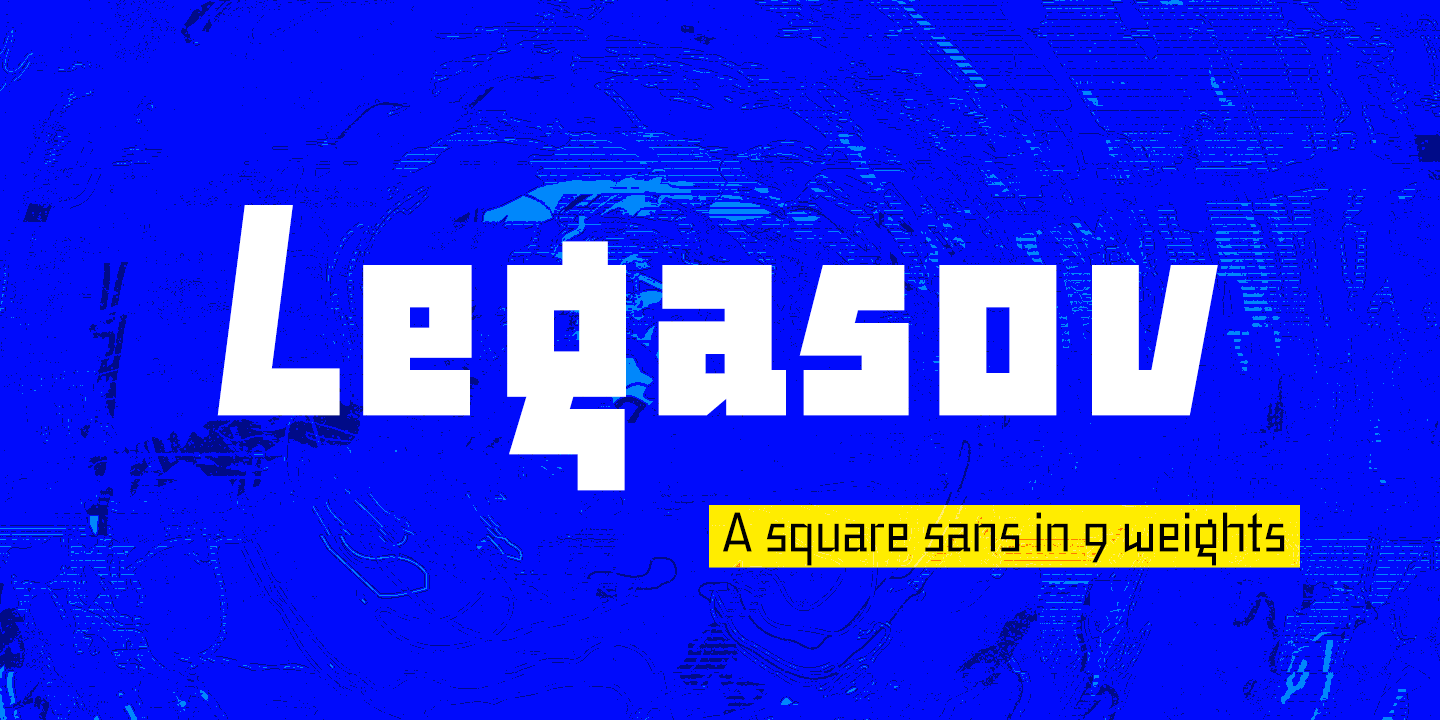
Legasov Font Free Download is a modern and minimalistic typeface that blends futuristic aesthetics with clean readability. Ideal for tech-inspired designs, branding projects, posters, and editorial layouts, Legasov offers a sleek and contemporary vibe. Its sharp structure and thoughtful spacing make it a go-to choice for designers who want clarity and character in one package.
Whether you're crafting UI/UX elements, startup logos, or bold headlines, the Legasov Font Free Download brings a refined edge to your visuals. Its versatile style adapts well across digital and print media, making it a reliable tool for professionals and creatives alike. The font's design communicates innovation, precision, and style, fitting seamlessly into forward-thinking projects.
In a world where font choice can define a brand's personality, Legasov Font Free Download offers a balanced mix of elegance and modern flair. Try it today and elevate your design game with this standout typeface.